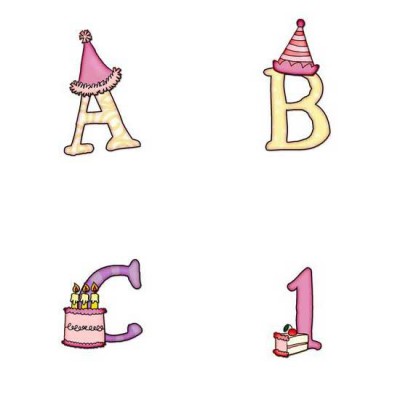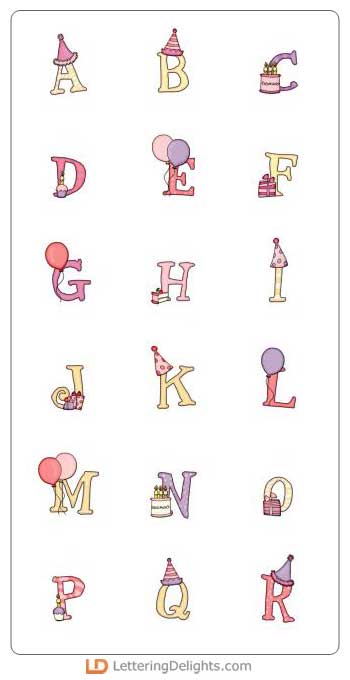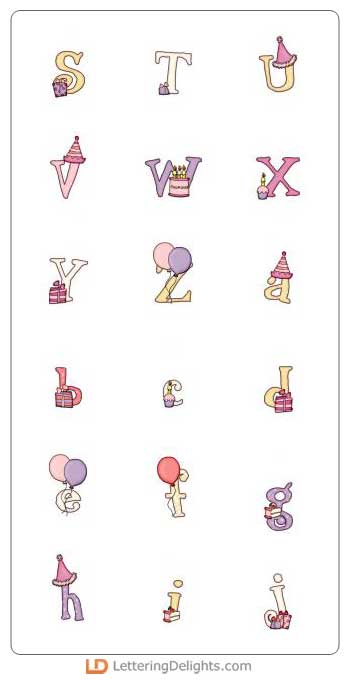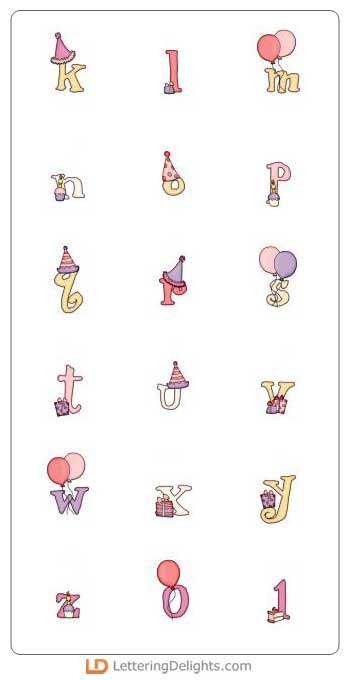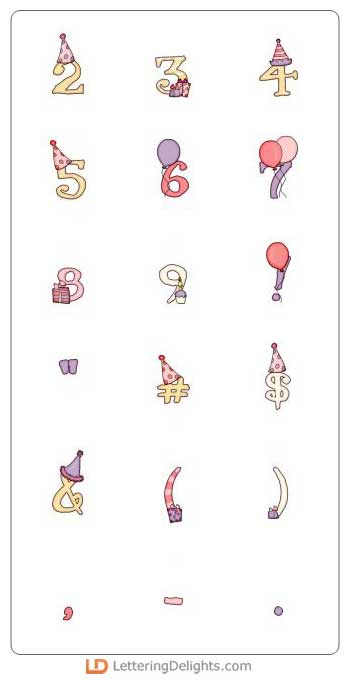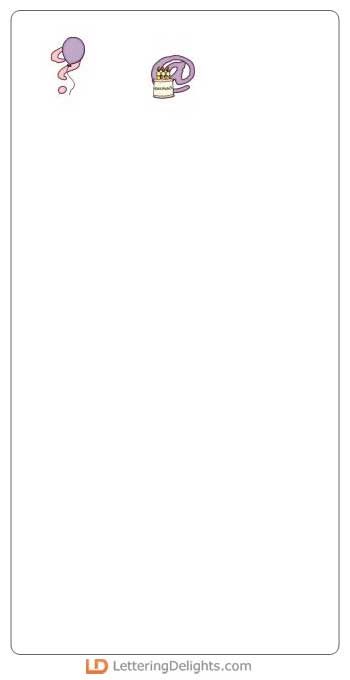
You go girl! With this pink digital alphabet you can dream up a whole bunch of party invitations, birthday greeting cards, thank you notes, and bulletin boards, as well as adorable scrapbook pages. Try the matching Journaling Delights set for outstanding embellishments.